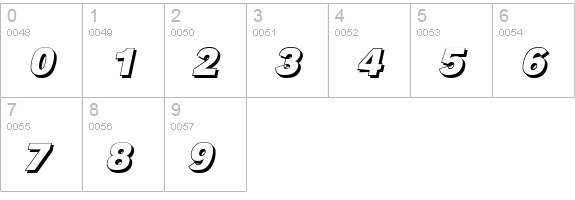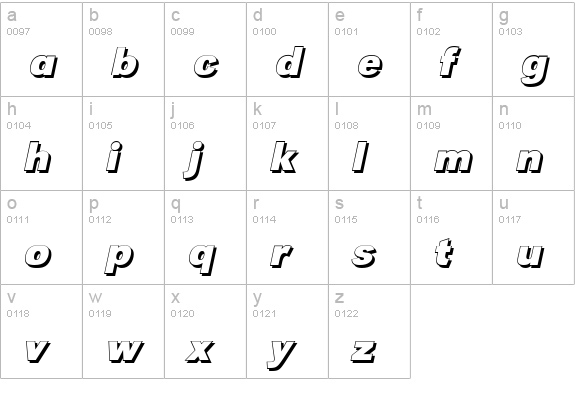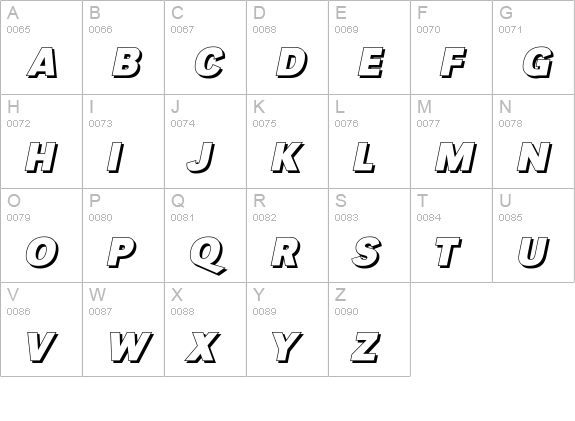
GroteskSh-BoldItalic is a bold and striking typeface that combines modernity with a touch of elegance. Its distinctive italic styling adds a dynamic and expressive flair to any design project. The font's sharp angles and clean lines make it perfect for creating eye-catching headlines, posters, and branding materials. This font is not only visually appealing but also incredibly versatile, suitable for a wide range of design applications. Whether you're working on a magazine layout, website design, or packaging, GroteskSh-BoldItalic will add a touch of sophistication and professionalism to your work. Best of all, GroteskSh-BoldItalic is available for free download at FontsMarket.com. Take advantage of this fantastic offer and enhance your design projects with this sleek and stylish font today!